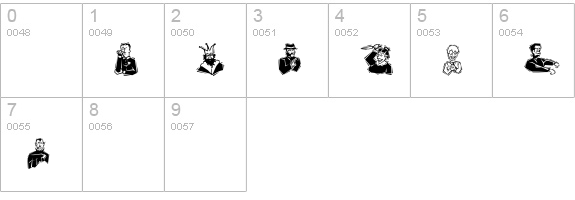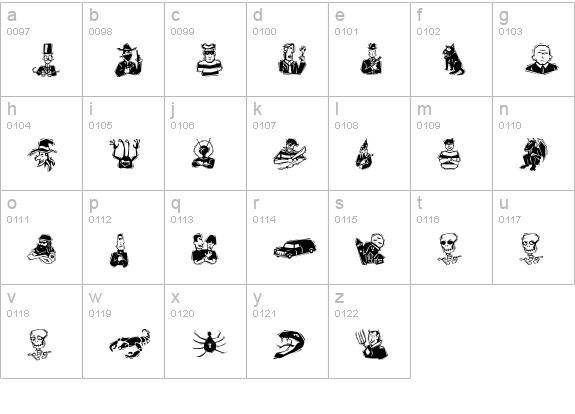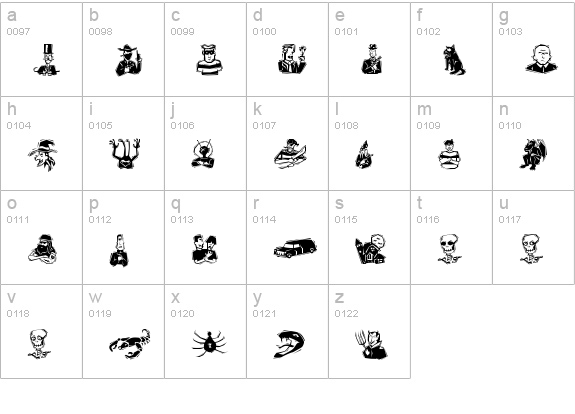
Sinister Font Details
Introducing Sinister font, a captivating and enigmatic typeface that will add a touch of mystery and intrigue to your designs. With its bold and edgy letterforms, Sinister font is perfect for projects that require a dark and sinister aesthetic. This font is not only visually striking but also versatile, making it suitable for a wide range of design purposes. Whether you're working on a gothic-themed poster, a horror movie title, or a Halloween party invitation, Sinister font will bring your creations to life with its hauntingly beautiful appearance. One of the best things about Sinister font is that it is free! Yes, you read that right. This amazing font is freely available to download at FontsMarket.com. Now you can enhance your designs without breaking the bank. Simply visit FontsMarket.com, locate the Sinister font, and start incorporating its captivating allure into your projects. With Sinister font, you can easily create a chilling atmosphere, capturing the essence of suspense and darkness. Its intricate details and unique character shapes will leave a lasting impression, ensuring that your designs stand out from the crowd. So why wait? Dive into the world of Sinister font and let your imagination run wild. Download this free font from FontsMarket.com today and embark on a journey into the realm of sinister design possibilities. Unleash your creativity and watch as your projects come to life with an eerie and captivating twist.